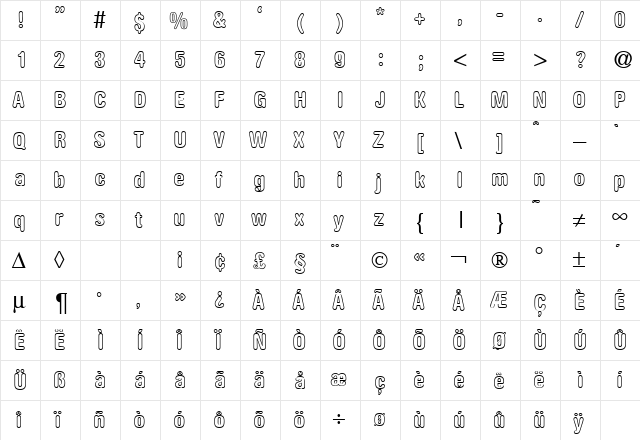
AkzentRoundedOutCond DB Bold Font Preview
Design Context for AkzentRoundedOutCond DB Typeface
AkzentRoundedOutCond DB softens its letterforms with rounded terminals, giving it an approachable, friendly quality that works well in consumer-facing and digital contexts. The heavy weight commands attention and anchors typographic hierarchies.
A natural fit for tech startups, health and wellness brands, children's products, and friendly consumer apps.
Font Pairing: Pairs well with a rounded or humanist sans for body copy, maintaining the friendly tone without relying on AkzentRoundedOutCond DB to carry extended reading.
Pro Tip: Pair AkzentRoundedOutCond DB with a geometric sans for a balanced system — the rounded softness works as a warm counterpoint to harder-edged companions.